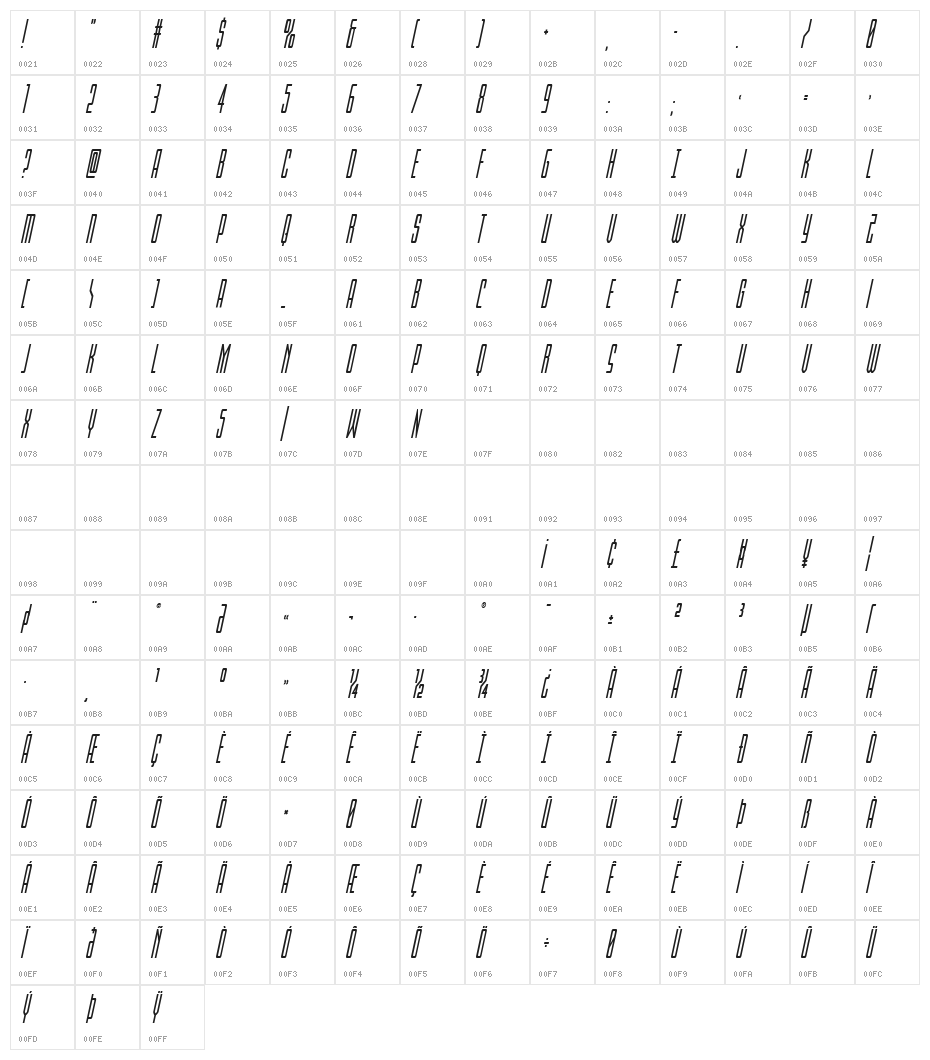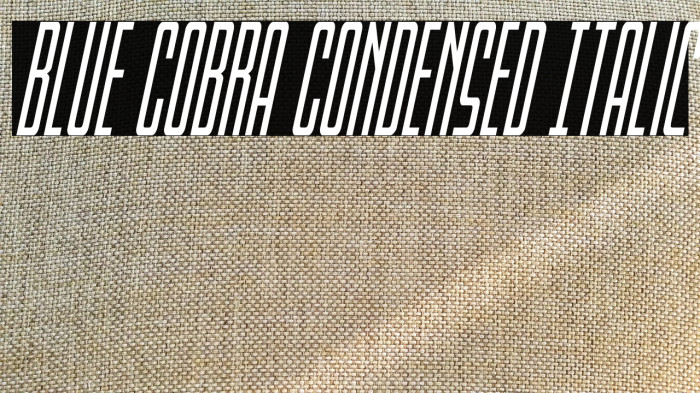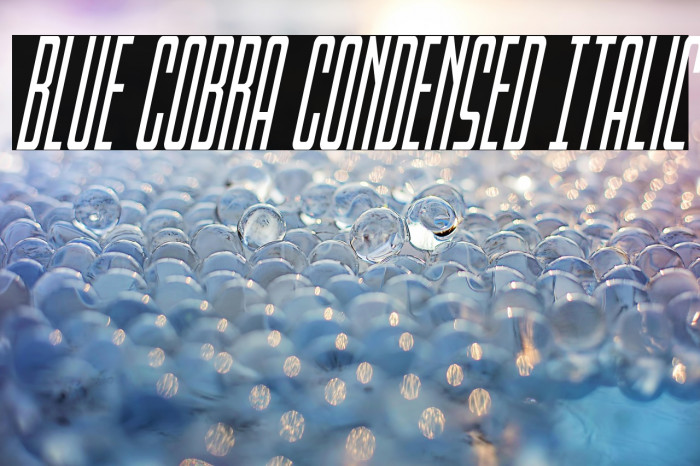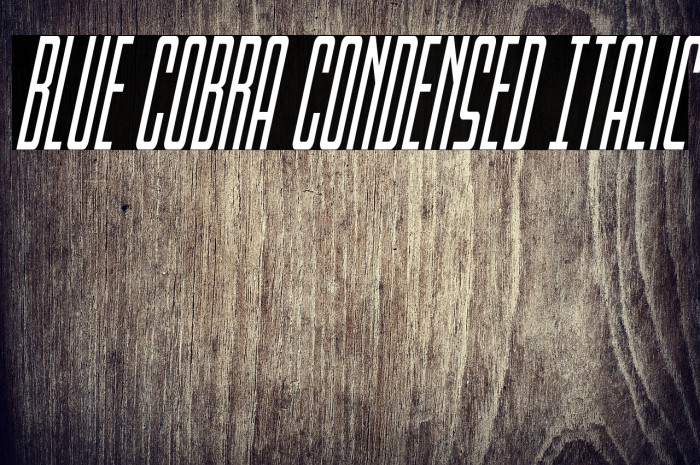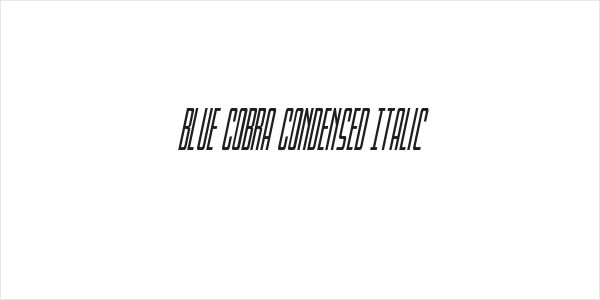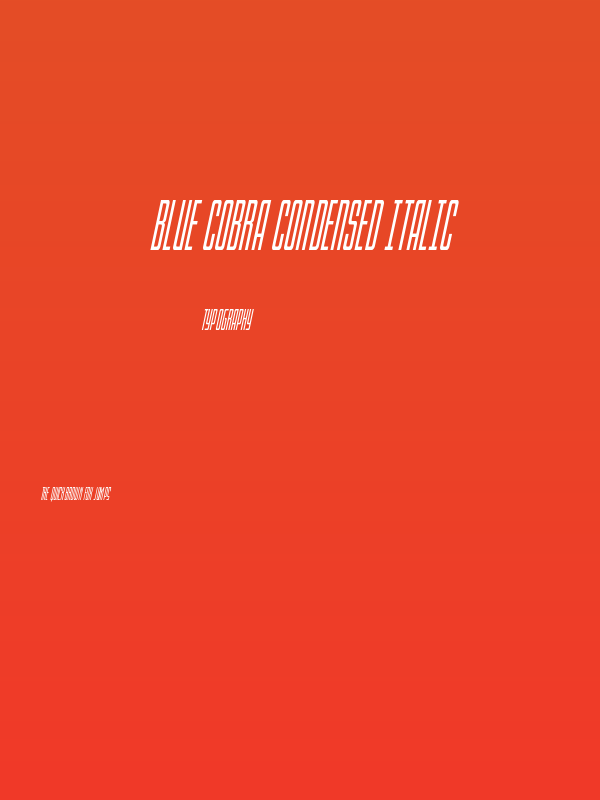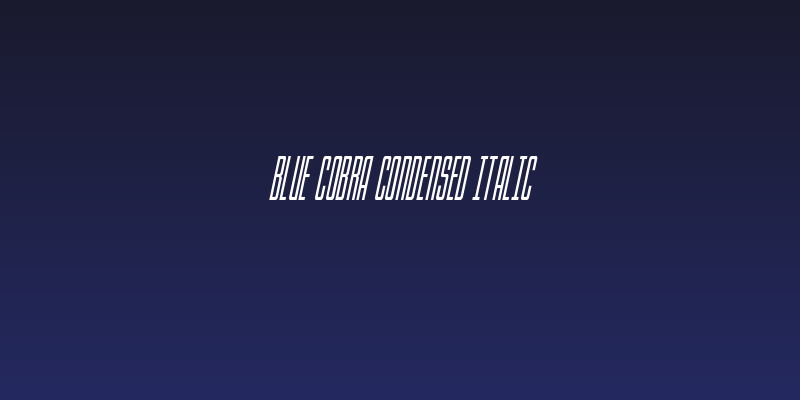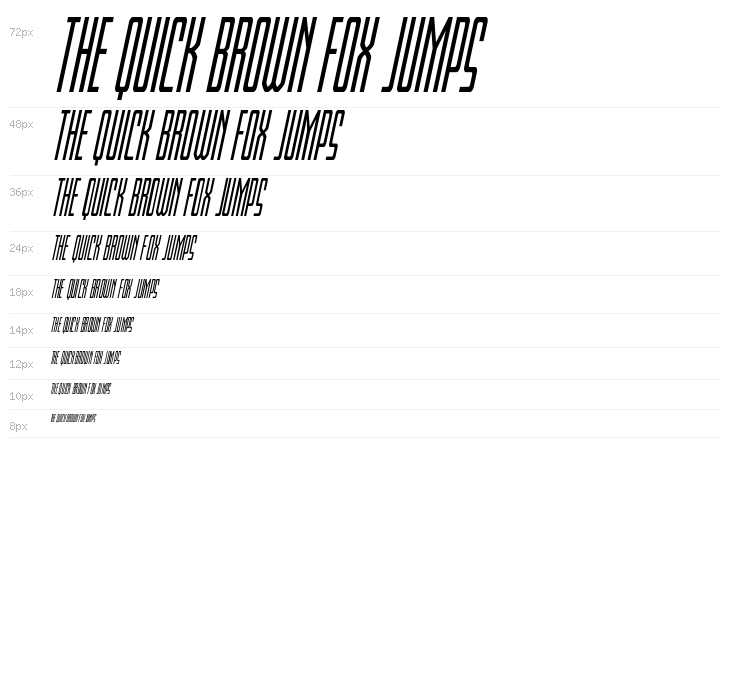
Blue Cobra Condensed Italic Font
Blue Cobra Condensed Italic Description
This font features a striking, condensed design with a pronounced italic slant, giving it a dynamic and energetic appearance. The characters are elongated and narrow, contributing to a sleek and modern aesthetic. The uppercase and lowercase letters maintain a consistent style, with sharp angles and clean lines that enhance readability despite the condensed form. The numerals and special characters follow the same stylistic cues, ensuring uniformity across all glyphs. This font's distinctive look makes it ideal for projects that require a bold and contemporary touch.
| Proposed Projects | Ideal for sports branding, dynamic posters, modern advertising, and edgy editorial design. |